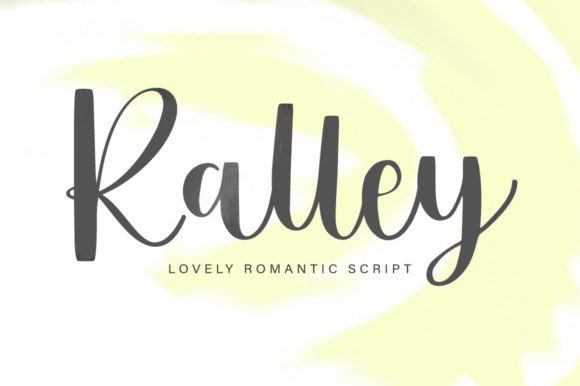
Unleash the Wild West with Ralley Font: The Wanted Poster's Perfect Partner
Introducing Ralley Font, a captivating script font that will transport you to the untamed frontier of the Wild West. Inspired by the rugged spirit of cowboys and the allure of the open range, Ralley captures the essence of a bygone era with its elegant touch and timeless style.
Step into the shoes of a notorious outlaw or a valiant lawman as you design your own wanted posters, evoking the thrill of the chase and the allure of justice. With Ralley Font, your posters will command attention and leave a lasting impression, just like the legends of the Wild West.
Beyond the realm of wanted posters, Ralley Font's versatility extends to a vast landscape of creative projects. Its flowing handwritten style adds a touch of elegance and charm to wedding invitations, greeting cards, social media posts, and branding designs. Let Ralley Font guide your imagination and transform your digital creations into captivating works of art.
At the heart of Ralley Font lies a profound understanding of typography and aesthetics. Each letterform has been meticulously crafted to convey a sense of authenticity and character, paying homage to the rich history of handwritten scripts. The result is a font that speaks volumes, capturing the spirit of the Wild West and adding a touch of sophistication to any project.
Embrace the allure of the Wild West and unleash your creativity with Ralley Font. Its PUA encoding ensures effortless access to a treasure trove of glyphs and ligatures, empowering you to customize your designs with ease. Whether you're a seasoned designer or just starting your creative journey, Ralley Font is your perfect partner, guiding you towards spectacular design achievements.